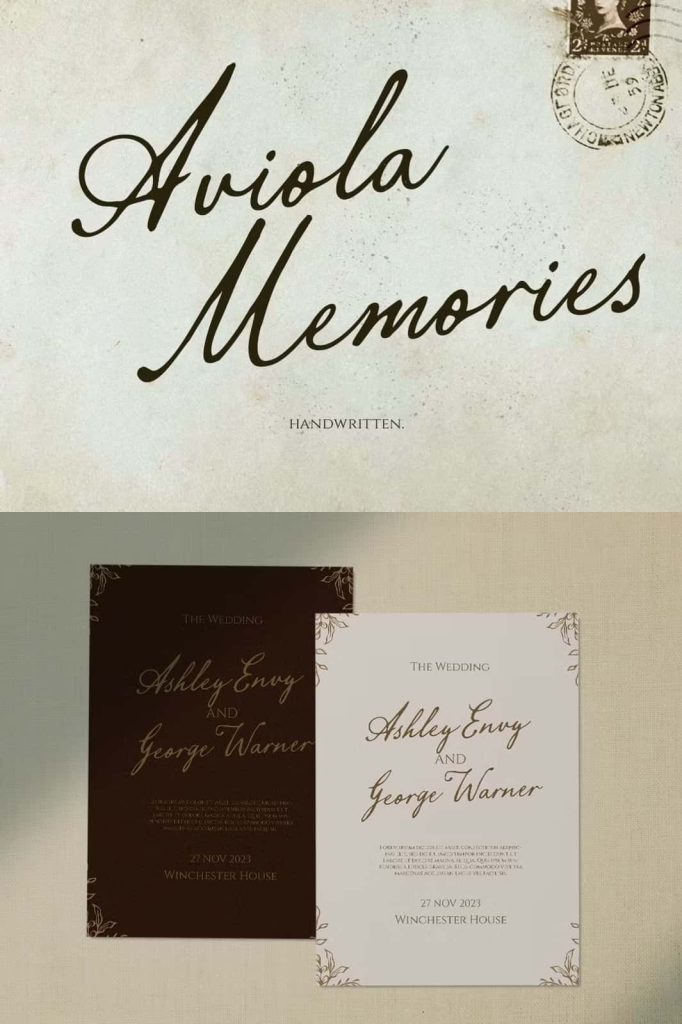
Aviola Memories – Romantic Script
Aviola Memories Script Font for Elegant Signature Designs
Aviola Memories is a refined script font inspired by authentic handwriting and natural signature styles. Designed to capture the elegance of handwritten expression, this typeface delivers smooth strokes, fluid connections, and a sophisticated rhythm that enhances any creative project. Whether you are building a brand identity or designing formal materials, Aviola Memories offers a timeless and graceful solution.
Authentic Handwritten Signature Style
Aviola Memories stands out because it closely reflects real handwriting. Each letter flows naturally into the next, creating a seamless and cohesive appearance that feels personal and genuine. The signature-inspired style gives your typography a polished yet human touch, making it ideal for designs that require both elegance and authenticity.
This natural flow helps you create text that looks effortless while maintaining a high level of sophistication. The font’s structure ensures that every word appears balanced and visually pleasing.
Smooth and Fluid Letterforms
The beauty of Aviola Memories lies in its smooth and consistent curves. The strokes transition gracefully, giving the font a refined and professional look. This fluidity enhances readability while maintaining the decorative quality expected from a script typeface.
Designers can use this font to create compositions that feel cohesive and harmonious, whether for short phrases or longer text elements.
Perfect for Logos and Branding
Aviola Memories provides a strong foundation for logo design and branding. Its signature style adds a personal and luxurious touch, helping brands stand out with a unique identity. The font communicates elegance and trust, making it suitable for industries such as fashion, beauty, and lifestyle.
You can use it to craft logos that feel distinctive and memorable. Its balanced design ensures that your branding remains consistent across different platforms and materials.
Ideal for Invitations and Formal Designs
If you want to create invitations that feel elegant and timeless, Aviola Memories is an excellent choice. Its graceful script enhances the presentation of wedding invitations, greeting cards, and event stationery. The font adds a sense of sophistication that elevates the overall design.
You can pair it with complementary fonts to create layouts that balance decorative and functional elements. This ensures that your designs remain both beautiful and easy to read.
Enhance Packaging and Product Labels
Aviola Memories works beautifully in packaging and label design. Its elegant style helps products appear more refined and appealing. You can use it to highlight brand names, product details, and key messages in a way that feels premium and professional.
This makes the font particularly suitable for cosmetics, fashion items, and high-end goods that require a sophisticated visual identity.
Versatile for Editorial and Advertising Projects
Beyond branding and invitations, Aviola Memories adapts well to editorial and advertising applications. You can use it in magazines, books, and promotional materials to add a touch of elegance and personality. Its fluid structure allows it to function effectively in headlines, subheadings, and decorative text.
The font also performs well in advertising campaigns, where strong visual identity plays a key role in capturing attention and conveying a message.
Suitable for Fashion and Creative Industries
Aviola Memories aligns perfectly with the needs of the fashion and creative industries. Its stylish and expressive design makes it ideal for lookbooks, branding materials, and promotional content. The font’s signature style adds a sense of exclusivity, helping brands establish a strong presence in competitive markets.
You can also use it for makeup packaging, boutique branding, and creative portfolios to achieve a polished and professional look.
Key Features of Aviola Memories Font
• Script font inspired by authentic handwriting
• Natural signature style with smooth connections
• Elegant and refined letterforms for professional design
• Perfect for logos, invitations, and branding projects
• Versatile for packaging, editorial, and advertising use
Create Elegant and Memorable Designs
Aviola Memories script font gives you the tools to create designs that feel graceful, personal, and visually compelling. Its combination of natural handwriting and refined structure allows you to produce work that stands out with elegance and clarity.
If you want to elevate your creative projects with a sophisticated signature style, Aviola Memories is a perfect choice. Use it to enhance your branding, refine your typography, and create designs that leave a lasting impression.